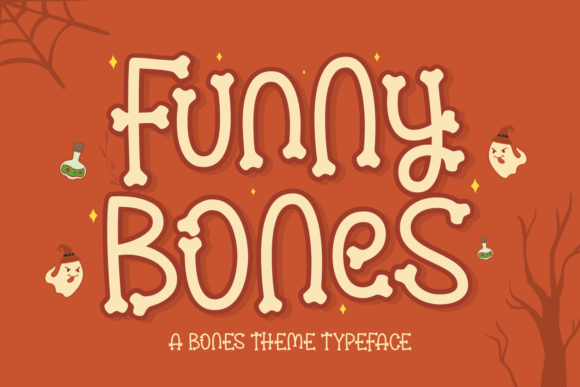
Welcome to the realm of whimsical fonts, where imagination meets creativity. Our newest addition, Funny Bones Font, is a playful and captivating display font that will infuse your designs with a touch of merriment and wonder.
Step into a world of Halloween delight with Funny Bones Font. This font is the perfect companion for all your spooky and silly projects. Its playful skeleton bones dance across the page, adding a touch of whimsy and charm to any design.
Funny Bones Font is a versatile font that can be used for a wide range of projects, from invitations and posters to greeting cards and social media graphics. Its unique and eye-catching design is sure to make your creations stand out from the crowd.
With Funny Bones Font, you'll have the power to transport your audience to a world of imagination and delight. Whether you're creating a Halloween-themed design or simply adding a touch of whimsy to your everyday projects, this font is sure to make your creations shine.
So, let your creativity run wild and embark on an adventure with Funny Bones Font. This font is the perfect choice for adding a touch of fun and excitement to your designs. Download it today and experience the magic of Funny Bones!
Embrace the spirit of Halloween with Funny Bones Font. Its quirky skeleton bones are sure to add a touch of spooktacular charm to your designs. From invitations and posters to greeting cards and social media graphics, this font is the perfect choice for all your spooky celebrations.
Unleash your inner child with Funny Bones Font. Its playful and whimsical design is sure to bring a smile to your face. Use it to create fun and engaging designs that will capture the attention of your audience.
So, what are you waiting for? Dive into the world of Funny Bones Font and let your creativity soar. Its quirky skeleton bones and whimsical charm are sure to leave a lasting impression on your audience. Download it today and experience the magic of Funny Bones!